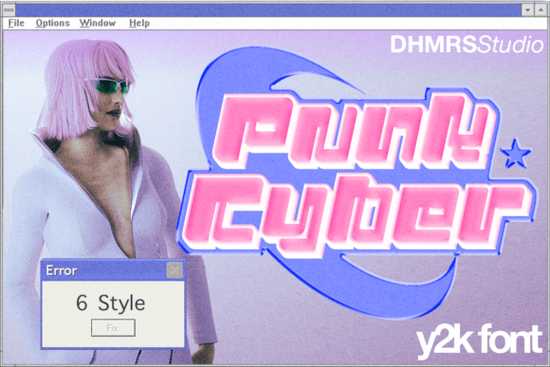
If you’ve been searching for a font that captures the chaotic energy and digital optimism of the early 2000s, Punk Cyber Font might be exactly what your next project needs. Inspired by Y2K aesthetics think frosted tips, flip phones, and glitchy web graphics this display typeface blends nostalgia with bold, modern edge. It’s especially useful if you’re designing merch, social posts, album covers, or anything that benefits from a little retro rebellion.
What makes Punk Cyber stand out isn’t just its look it’s the variety packed into one family. You get six distinct styles: Regular, Slant, Outline, Extrude, Outline Slant, and Extrude Slant. That means you can create layered headlines, add depth without extra software, or switch between clean and grungy looks without changing fonts. For print-on-demand sellers or small business owners building brand assets, that kind of flexibility saves time and keeps your visual identity cohesive.
Who is Punk Cyber Font best for?
This font shines in contexts where personality matters more than readability at small sizes so it’s not ideal for body text, but perfect for:
- Social media graphics (especially Instagram stories or TikTok thumbnails)
- T-shirt and sticker designs with a nostalgic or cyberpunk twist
- YouTube thumbnails and channel art that need to pop in a crowded feed
- Event posters for music shows, gaming nights, or retro-themed parties
- Magazine headlines or zine layouts leaning into experimental typography
If your audience responds to irony, digital nostalgia, or underground aesthetics, Punk Cyber speaks their language. And because it’s a display font built for impact, it holds up well even when scaled large or printed on fabric.
How does it compare to other Y2K-inspired fonts?
Not all retro fonts nail the balance between authenticity and usability. Some lean too kitschy; others feel generic. Punk Cyber avoids both traps by offering structured variations (like Extrude and Outline) that give you real design control. If you like this vibe but want alternatives to test alongside it, consider exploring Bigland Retro for softer curves or Thick Jungle for a bolder, organic contrast.
For those who enjoy mixing typefaces, pairing Punk Cyber with a clean sans-serif (like Helvetica Neue or Inter) creates a striking contrast edgy headline meets minimalist body text. You could also layer it subtly over grainy textures or pixelated backgrounds to amplify the early-internet mood.
Just keep in mind: while the font itself is versatile, overusing Y2K elements can dilute your message. A single bold word in Punk Cyber often works better than an entire paragraph. Think of it as an accent like neon eyeliner or chrome accessories not the whole outfit.
For crafters, designers, and indie creators looking to inject some digital-era nostalgia into their work without sacrificing professionalism, Punk Cyber offers both flair and function. Just remember: less is often more. One impactful word in Extrude Slant can say more than a wall of outlined text.